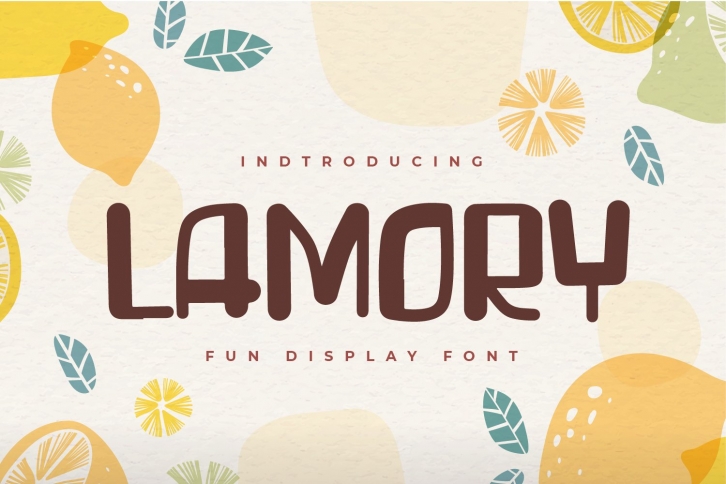
Lamory - Fun Display font Download
Lamory is a gorgeous font that was realeased on November 13, 2020. The font can be used in many style contexts and design environments. Perfect for invitations, magazines, websites, logos, and more! It was designed by Qiro Studio and the file size is 12.26 MB. Thanks for checking out this font!